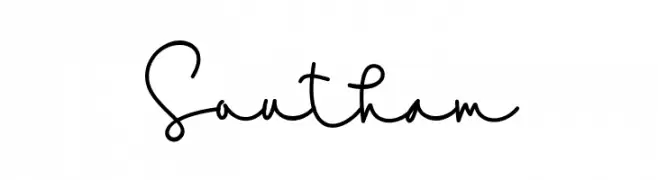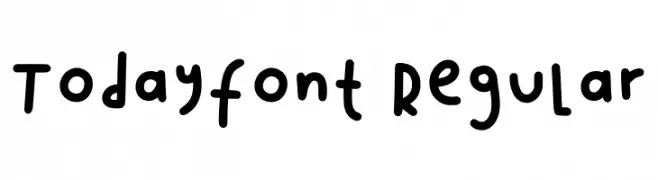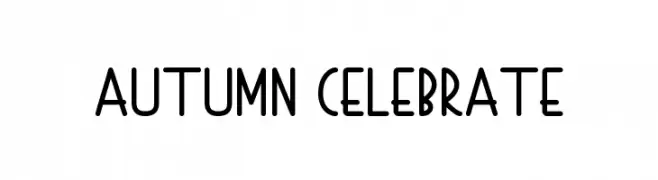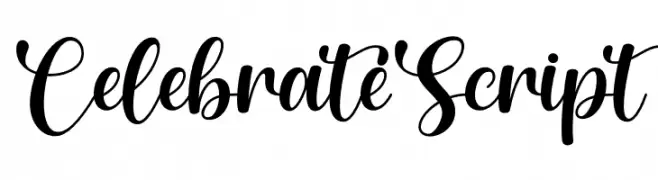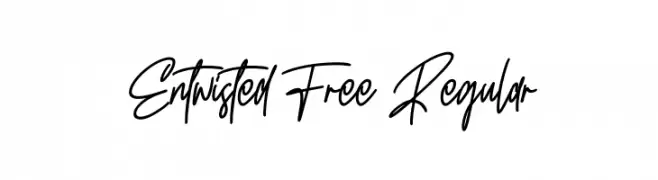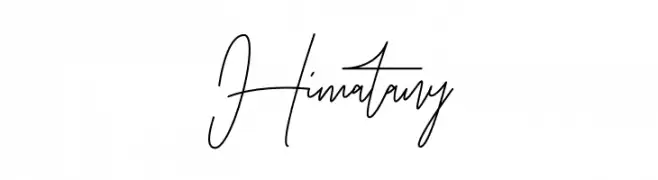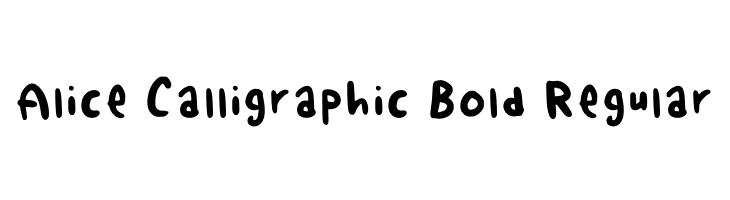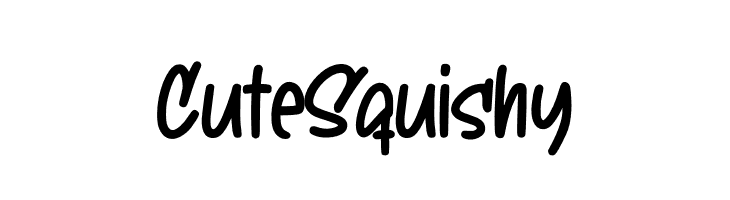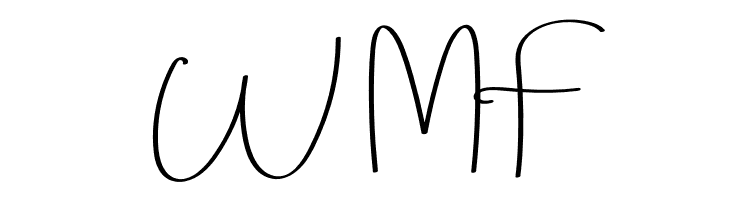
( Fonts by Sizimon.id )
Elegant handwritten script with tall, flowing characters.
( Fonts by CBRTEXT Studio )
Casual handwritten script with tall, narrow letters and fluid strokes.
( Fonts by Today Istheday )
Handwritten, rounded sans-serif with a playful, informal style.
( Fonts by Fillo Graphic )
Playful, rounded sans-serif with a hand-drawn, whimsical feel.
( Fonts by Fillo Graphic )
Elegant, high-contrast script with decorative flourishes.
( Fonts by Picky Labs )
Loose, playful handwritten script with tall, expressive forms.
( Fonts by Letterena Studios )
Expressive, handwritten script with bold, sweeping strokes.
( Fonts by Maulana Creative )
Expressive, tall handwritten script with fluid, connected strokes.
( Fonts by Jadatype )
Elegant, thin, cursive handwritten script with flowing, organic lines.
( Fonts by Jadatype )
Elegant, thin, and highly slanted handwritten script.